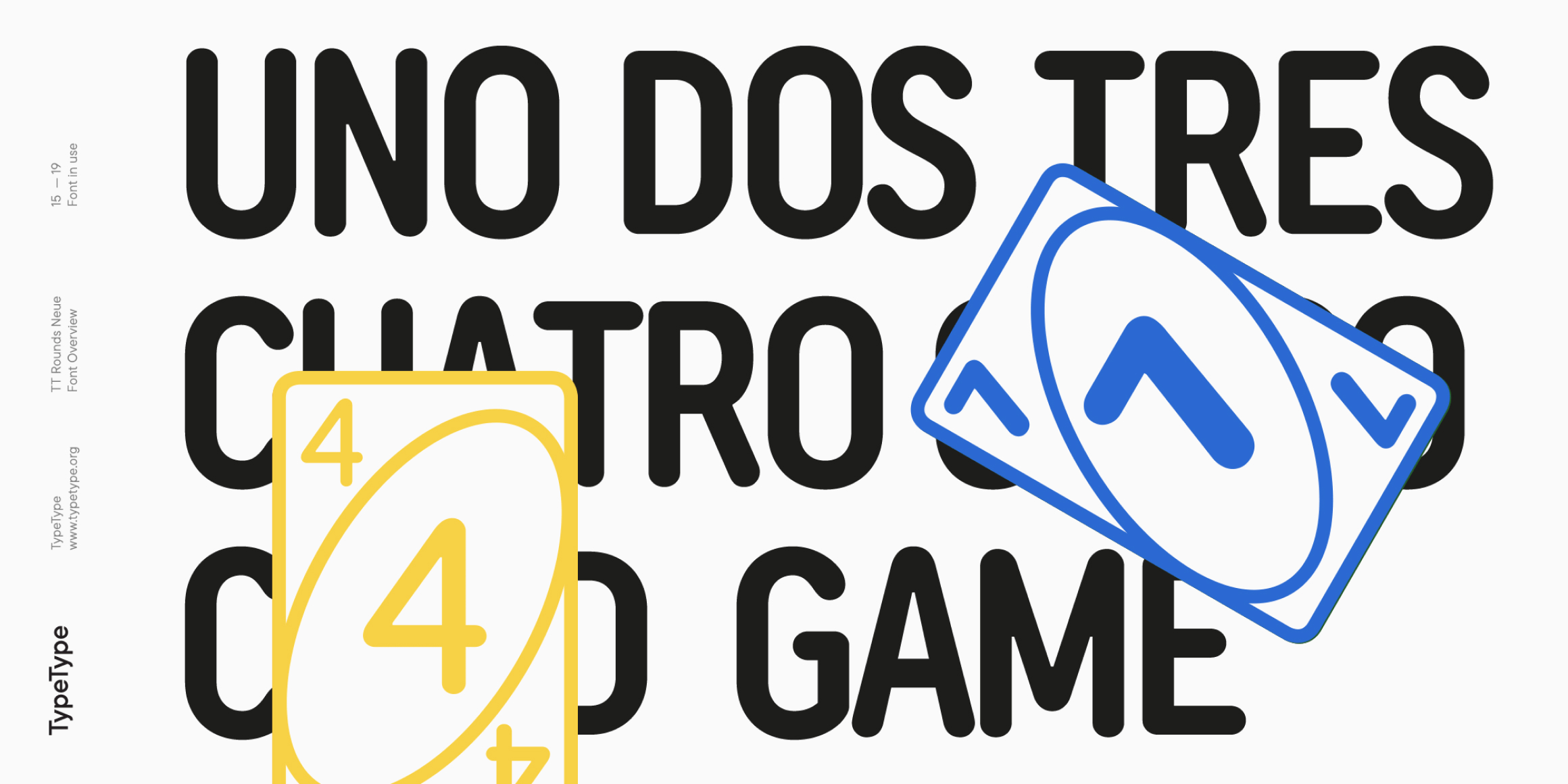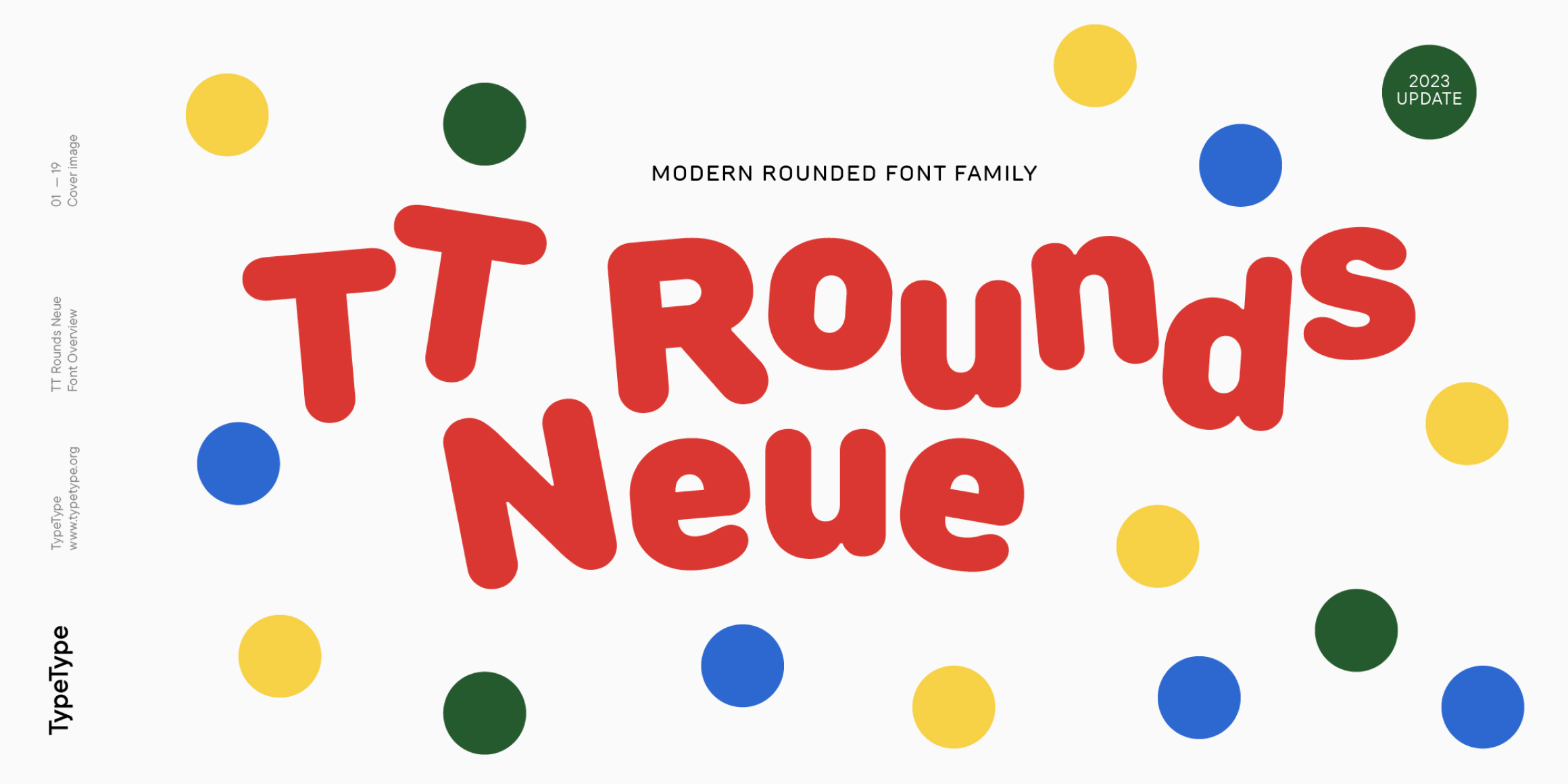
TT Rounds Neue Condensed
TT Rounds Neue is a sans serif with rounded forms. Its character is soft and friendly. In its lighter font styles, the typeface looks minimalistic and neutral: rounded stroke ends become almost invisible, and fluid lines come into focus. The bold font styles make TT Rounds Neue puff up and achieve maximum roundness, displaying childish traits.
Different TT Rounds Neue font styles can be used for both headings and running text. The typeface is designed for optimal web performance and can be used in the printing industry and packaging design. Thanks to its fun character, this typeface is perfectly suited for designing products and services for children: educational games, food products, clothing brands, etc. However, the font isn’t confined to just these areas of use.